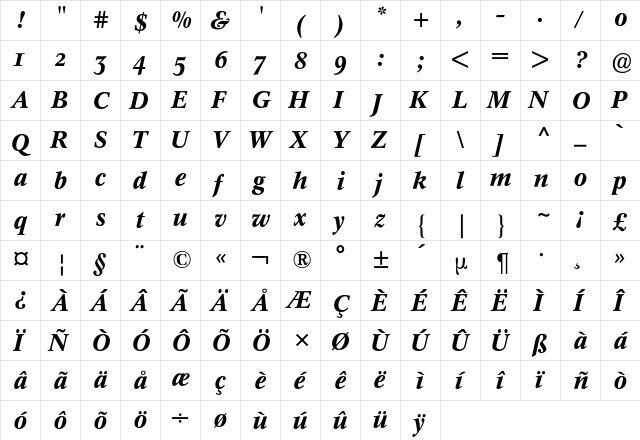
Concorde Expert BQ Regular
Design Context for Concorde Expert BQ Typeface
Concorde Expert BQ offers clean, dependable letterforms without strong stylistic allegiance, making it a practical choice for designers who need flexibility.